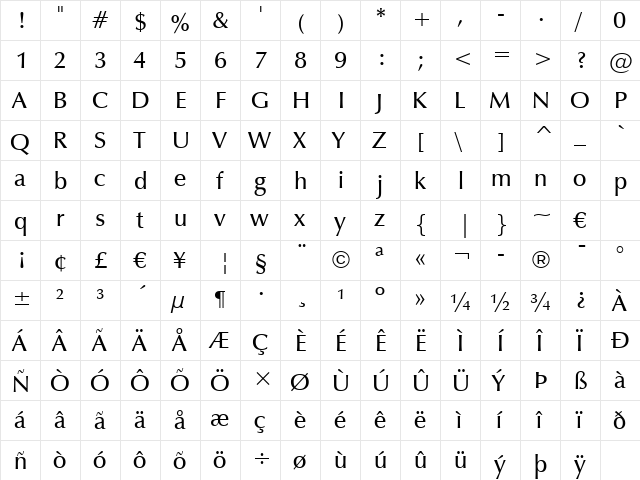
ZapfHumnst Dm BT Demi
Design Context for ZapfHumnst Dm BT Typeface
ZapfHumnst Dm BT is a composed and adaptable typeface that performs quietly and consistently across a wide range of design contexts.